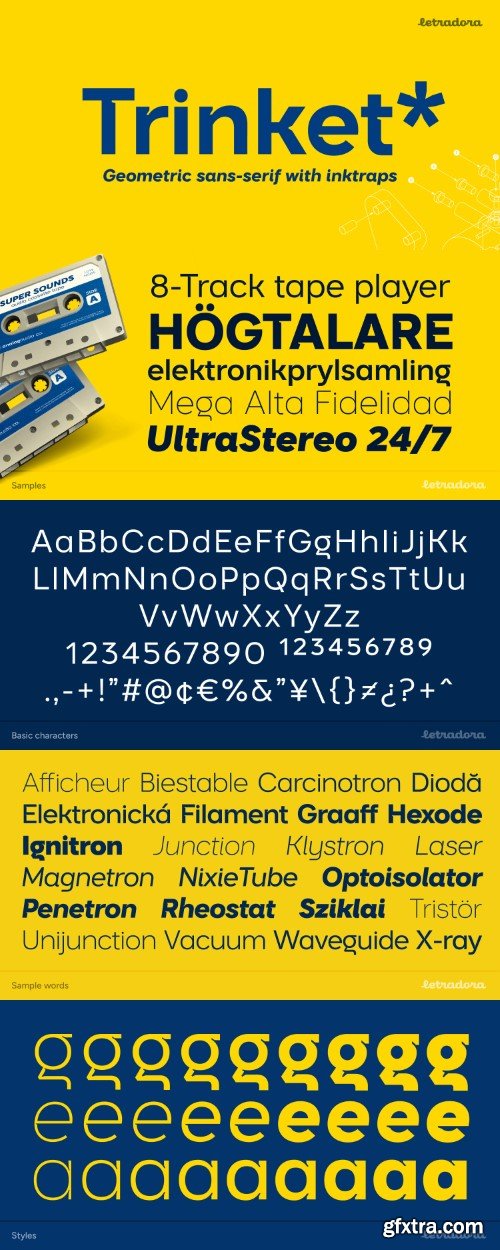
Trinket 变形字套餐
Introducing Trinket: a sleek, modern typeface that combines geometric precision with contemporary style. With inktraps adding a unique touch, Trinket offers 9 weights in regular and italic, along with variable font versions, allowing for effortless customization. With 898 glyphs, Trinket supports more than 130 languages, making it perfect for captivating headlines, logos, and body text in both print and digital media all around the world. Trinket is a workhorse with personality, great for designing logos, crafting headlines, or styling body text.